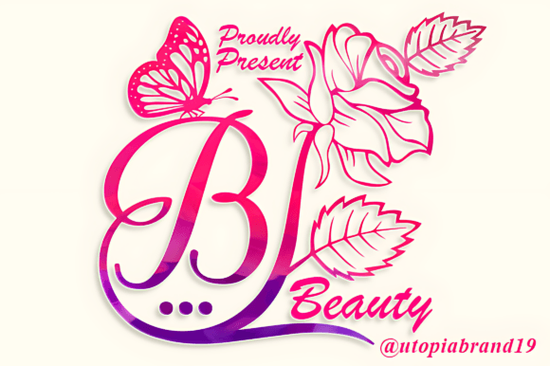
What kind of projects can I use this monogram font for?
You’ll see this floral monogram style most often on romantic and soft-themed projects. Designers love it for:- Wedding invitation suites, save-the-date cards, and place cards
- Branding for beauty salons, florists, or handmade soap shops
- Social media quote graphics and Pinterest pins
- Greeting cards for Mother’s Day, Valentine’s Day, or anniversaries
- Personalized gifts like monogram tote bags, mugs, and stationery
Is it easy to read in long names or words?
Purely decorative monograms sometimes become tangled when you write out a full name. Beauty Flower Monogram handles longer words quite well. The floral details sit mostly on the uppercase letters, while lowercase letters keep a light, swash-like appearance. If you’re setting a full name, try pairing it with a simple sans serif for the date or address line. This keeps your layout readable and elegant, especially on invitation cards where hierarchy matters.How does this font work for digital and print uses?
Yes. Because the decorative elements are contained within the characters, the font doesn’t demand all the attention. For a clean, modern look, combine it with a thin, condensed sans serif. If you’re creating a vintage-inspired design, try a typewriter or serif font underneath. You can also lean into the whimsical side by mixing it with other lighthearted decorative fonts from our collection. For children’s party themes, a playful dinosaur style works wonderfully for birthday badges. For baby showers, a soft bow-accented letterfont creates an equally sweet vibe. And if you need something airy to complement the floral theme, Cotton Cloud Font adds a dreamlike backdrop when used as a secondary heading. These combinations let you expand a single purchase into multiple cohesive product collections.Does this decorative font feel fresh or dated?